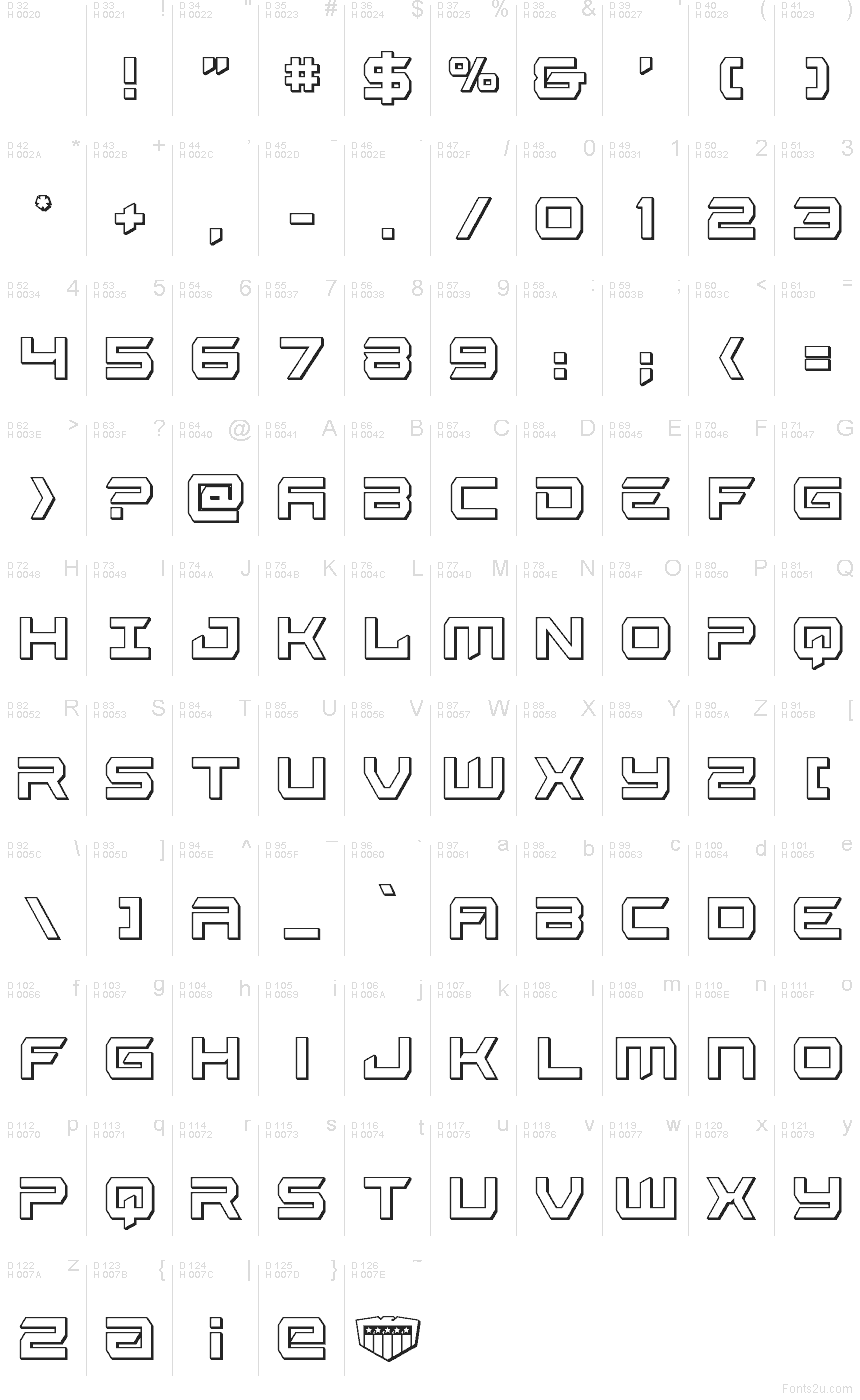
Jurist Dire 3D
Jurist Dire 3D font by Iconian Fonts is a free futuristic display typeface from the Jurist Dire family that looks like it was machined from chrome panels. Its sharp, angular letters, beveled outlines, and hollow interiors create a clean 3D effect that pops even in a single color. The rhythm is compact and precise, giving headlines a dense, high-tech feel that reads like a game HUD or sci‑fi title card straight out of a neon-lit future.
Using Jurist Dire 3D, your text instantly feels engineered for tech worlds and digital arenas. This free font works beautifully for gaming logos, esports branding, sci‑fi posters, tech event titles, YouTube thumbnails, and futuristic product packaging. Keep it big and bold so the 3D edges stay crisp, and pair it with a simple geometric sans serif for supporting text to let Jurist Dire 3D handle the spotlight.